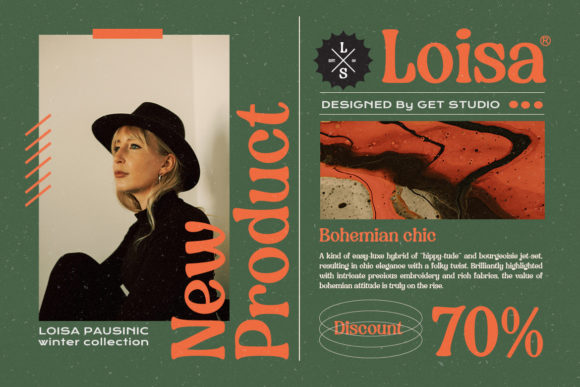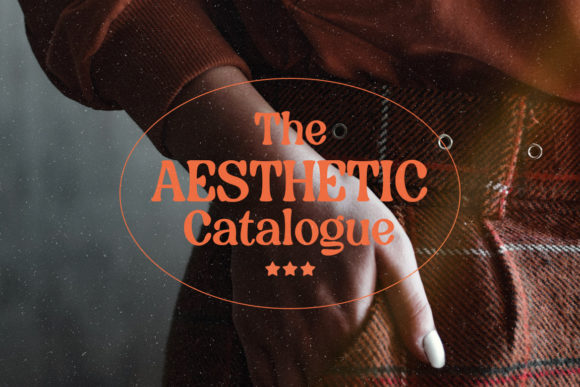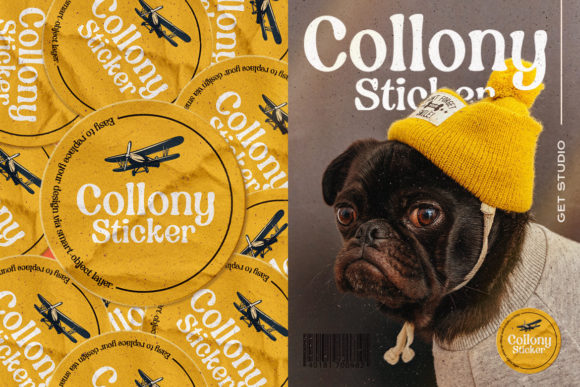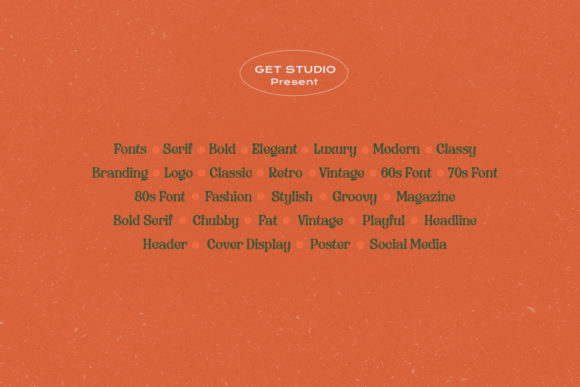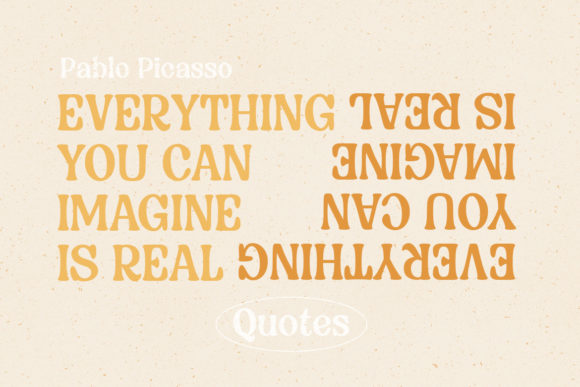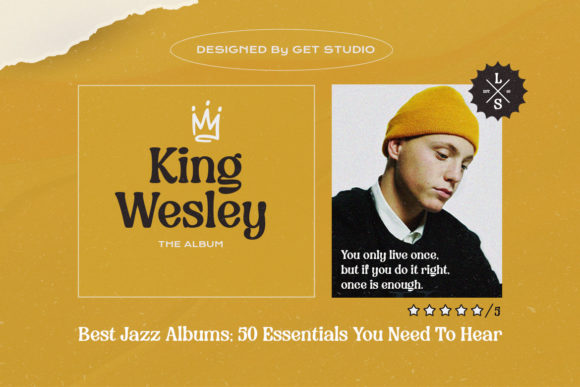
Introduction to Rhodesia Font
There’s nothing quite like the thrill of a creative spark, when a simple idea suddenly ignites a wave of inspiration. For designers, this moment can come in many forms, but one of the most exciting is when we stumble upon the perfect font to bring our vision to life. For me, that font is the Rhodesia Font – a vintage-inspired display font that exudes a sense of high-quality sophistication.
Whether you’re working on a free download design project or a paid creative endeavor, the Rhodesia Font is an invaluable resource to have in your design library. Its unique, retro aesthetic lends itself perfectly to a wide range of topics, from travel and adventure to food and fashion. And with a transparent background, you can easily layer it over your design elements to create a truly eye-catching effect.
As a valuable addition to any designer’s toolkit, the Rhodesia Font is sure to elevate your creative projects and leave a lasting impression on your audience. In this article, we’ll delve deeper into the world of this incredible font, exploring its history, uses, and why it’s a must-have for any serious designer.
Key Features of Rhodesia Font
- High-quality design: Rhodesia Font is a unique and stylish font perfect for creative projects.
- Size and resolution: Comes in 1 font style, with each character meticulously crafted at 300 DPI resolution.
- Unique characteristics: Features a distinctive, elegant design with intricate details, ideal for use in logos, branding, and packaging.
- Design versatility: Suitable for various creative projects, including print and digital designs, thanks to its clean and sophisticated look.
Honest Review: Rhodesia Font
As a designer, I’m always on the lookout for high-quality design resources to enhance my creative projects. Recently, I stumbled upon the Rhodesia Font, and I must say it’s a fantastic addition to my design arsenal.
- ✨ The font’s unique style and character set make it perfect for adding a touch of personality to any design.
- ⚠️ Some users may find the font’s unconventional style a bit jarring, especially when used in traditional designs.
Overall, I’m thoroughly impressed with the Rhodesia Font. Its unique style and high-quality design make it a valuable addition to any designer’s toolkit. While it may have some limitations, it’s an excellent resource for creative projects and a great choice for designers looking for a distinctive font.
Common Use Cases for Rhodesia Font
Rhodesia Font is ideal for designing wedding invitations, business cards, and other creative projects that require a high-quality and elegant font. Its transparent background feature makes it perfect for overlaying text on images or videos.